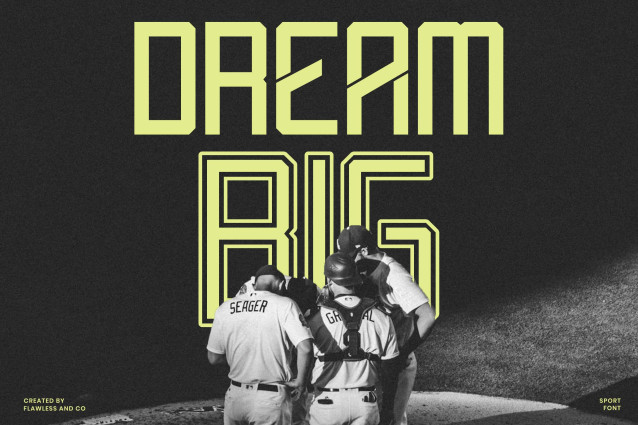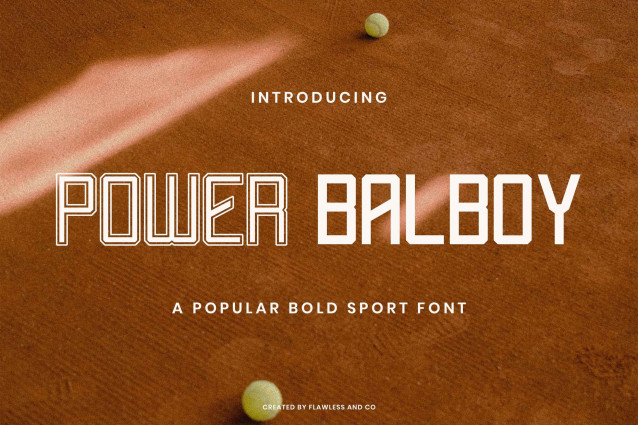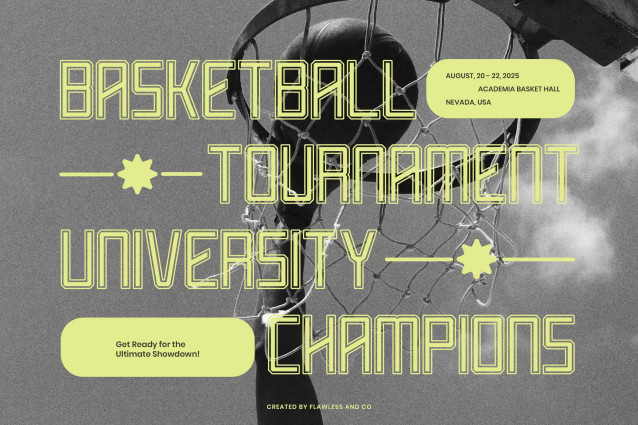
Power Balboy Font
Power Balboy Font is a modern and bold display font. Contemporary and fresh, it is perfect for any design you wish to create. Add it to your creative projects and make them outstanding!